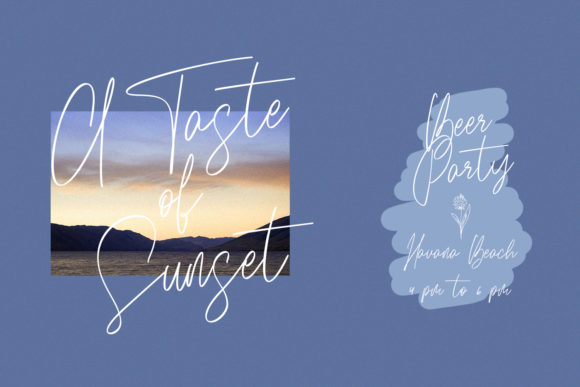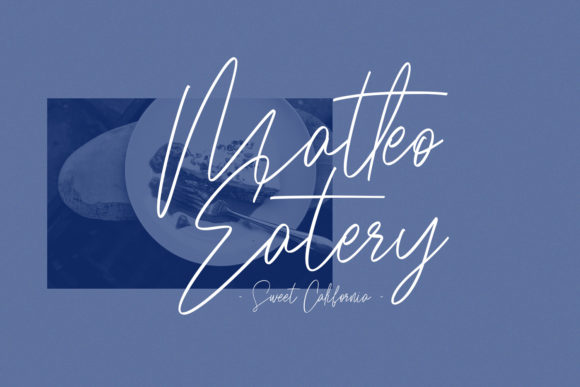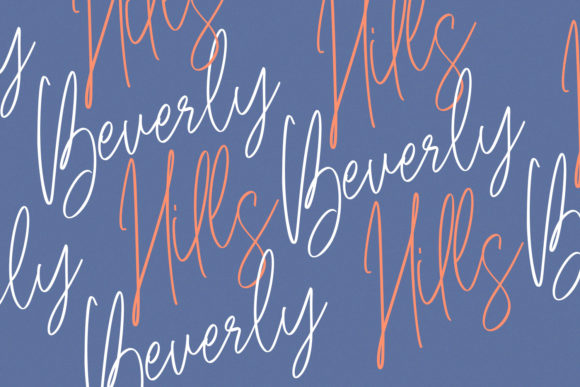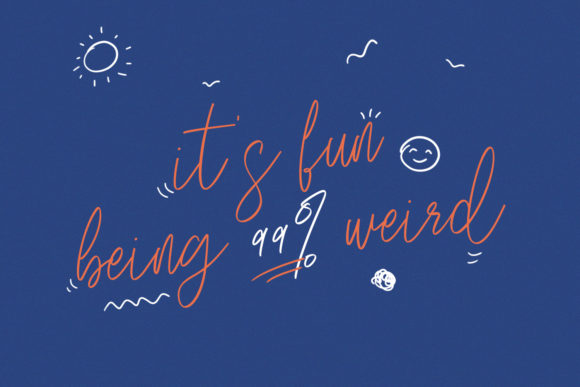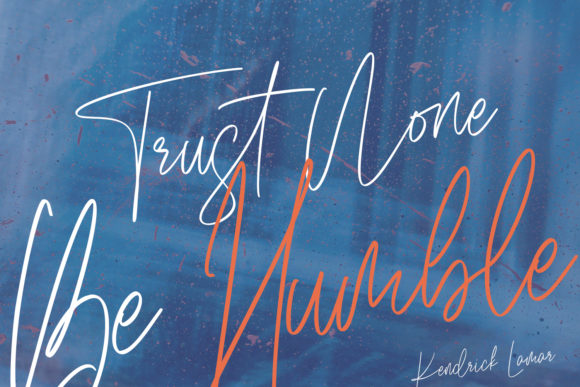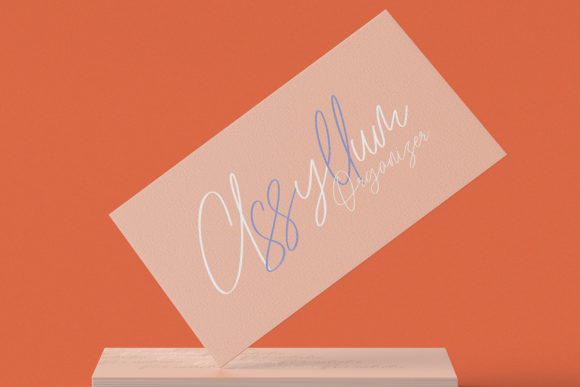
Introducing Body Language Font: Elevate Your Designs with Elegance
Are you tired of using the same old fonts in your designs? Look no further than Body Language Font, a stylish and delicate script font that’s sure to take your creations to the next level. With its clean, thin, and smooth vibe, this font is perfect for adding a touch of sophistication to any design.
What is Body Language Font?
Body Language Font is a beautifully crafted script font that’s designed to add a touch of elegance to your designs. Its delicate lines and smooth curves make it perfect for use in a variety of applications, from wedding invitations and branding materials to social media graphics and more.
Key Features of Body Language Font
- Clean and Thin Design: Body Language Font features a clean and thin design that’s perfect for adding a touch of sophistication to your designs.
- Smooth Vibe: The font’s smooth curves and lines make it perfect for use in a variety of applications, from print to digital.
- Delicate Lines: The font’s delicate lines make it perfect for use in designs where you want to add a touch of elegance.
- Script Font: Body Language Font is a script font, making it perfect for adding a touch of personality to your designs.
Why Use Body Language Font?
There are many reasons why you should consider using Body Language Font in your designs. Here are just a few:
- Add a Touch of Elegance: Body Language Font is perfect for adding a touch of elegance to your designs. Its delicate lines and smooth curves make it perfect for use in wedding invitations, branding materials, and more.
- Stand Out from the Crowd: With its unique and stylish design, Body Language Font is sure to help your designs stand out from the crowd.
- Versatile: Body Language Font is versatile and can be used in a variety of applications, from print to digital.
- Easy to Read: Despite its delicate design, Body Language Font is easy to read, making it perfect for use in body text.
How to Use Body Language Font
Using Body Language Font is easy. Here are a few tips to get you started:
- Pair it with Other Fonts: Body Language Font pairs well with other fonts, making it perfect for use in designs where you want to add a touch of elegance.
- Use it in Headings: Body Language Font is perfect for use in headings, where its delicate lines and smooth curves can really shine.
- Add it to Your Branding Materials: Body Language Font is perfect for use in branding materials, such as business cards and brochures.
Tips and Tricks for Working with Body Language Font
Here are a few tips and tricks to help you get the most out of Body Language Font:
- Experiment with Different Sizes: Body Language Font looks great in a variety of sizes, so don’t be afraid to experiment.
- Use it in Combination with Images: Body Language Font pairs well with images, making it perfect for use in designs where you want to add a touch of elegance.
- Pay Attention to Kerning: As with any font, pay attention to kerning to ensure that your text looks professional.
Body Language Font is a stylish and delicate script font that’s perfect for adding a touch of elegance to your designs. With its clean, thin, and smooth vibe, this font is sure to be a hit with designers and crafters alike. Whether you’re looking to add a touch of sophistication to your wedding invitations, branding materials, or social media graphics, Body Language Font is the perfect choice.